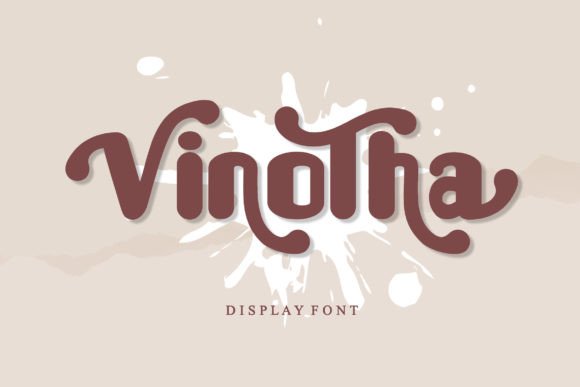
In a world where your business plan is the gateway to success, the choice of font can make all the difference. Introducing Vinotha Font, the sophisticated and charming display font that will elevate your business plan to new heights of elegance and professionalism.
Created by the renowned Home Work Creative Studio, Vinotha Font is a masterpiece of digital artistry, meticulously crafted to cater to the unique demands of luxury and elegant projects. Its graceful curves and sharp edges dance together in perfect harmony, creating a visual symphony that exudes both sophistication and approachability.
With Vinotha Font as your trusted companion, your business plan will blossom into a captivating narrative, alluring investors and partners with its sheer beauty and finesse. Imagine your words taking on a life of their own, each letter a brushstroke of elegance, painting a picture of your business's potential that will leave an indelible impression.
Vinotha Font's versatility extends beyond business plans, seamlessly adapting to a wide array of creative projects. Whether you're designing logos, brochures, websites, or social media campaigns, Vinotha Font will effortlessly elevate your designs with its timeless appeal and modern flair.
But what truly sets Vinotha Font apart is its ease of use. Its PUA encoding ensures effortless access to all the glyphs and ligatures, empowering you to unleash your creativity without any technical hurdles.
So, embark on this journey of elegance and sophistication with Vinotha Font. Transform your business plan into a masterpiece, captivate audiences with your designs, and unlock a world of creative possibilities. The choice is clear – Vinotha Font is the key to unlocking your business's true potential.